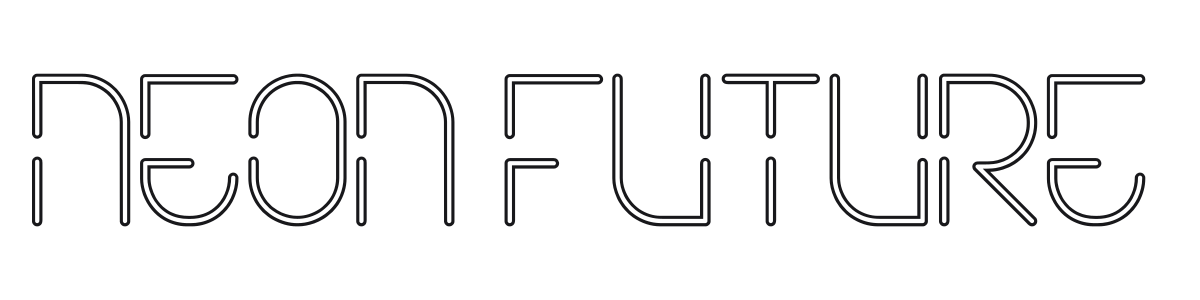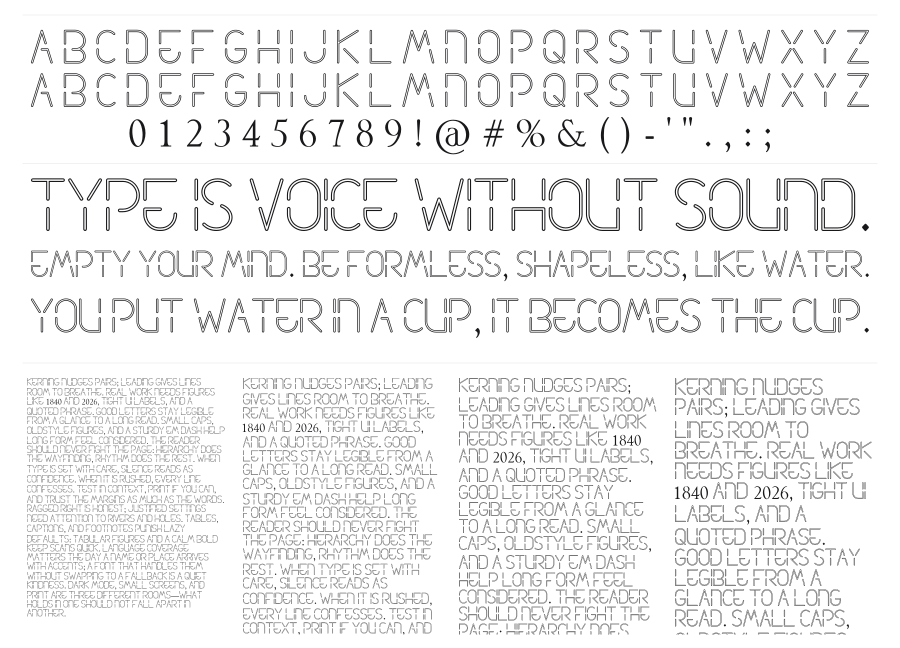
Neon Future
Neon Future is a geometric outline display font built to look like light traced through glass tubing. Its thin double-stroke construction and rounded terminals capture the feel of neon signage and cyberpunk city aesthetics. Designed for gaming logos, synthwave album art, and tech branding where a futuristic edge is the whole point.